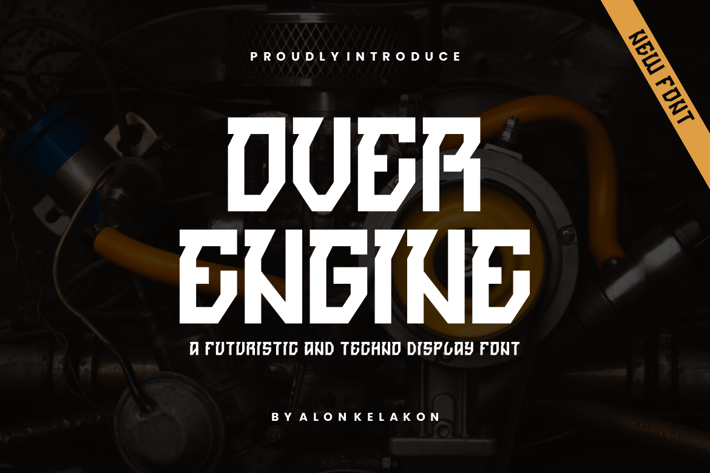
Over Engine Futuristic and Techno Font
Over Engine Futuristic and Techno Font Font is unique . Ready to use for your design like labeling, movie sceen, poster, movie title, gigs, album covers, logos, and much more.